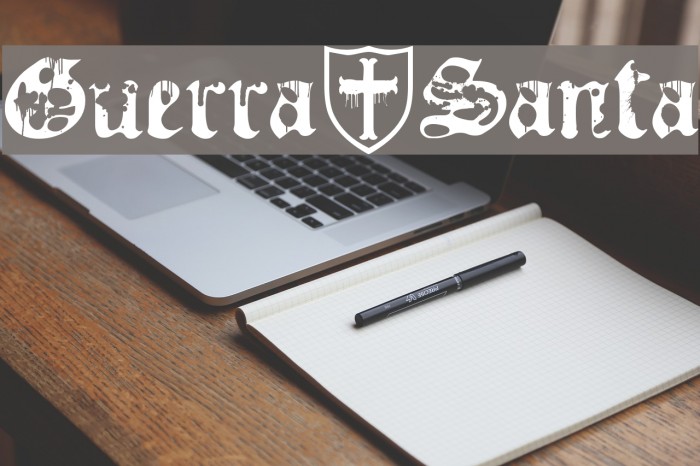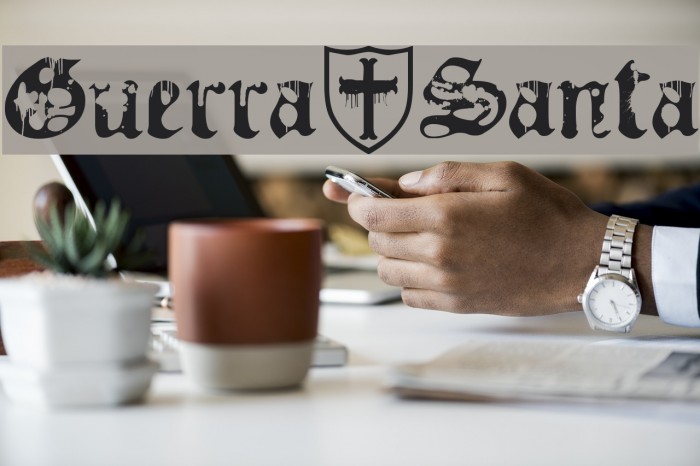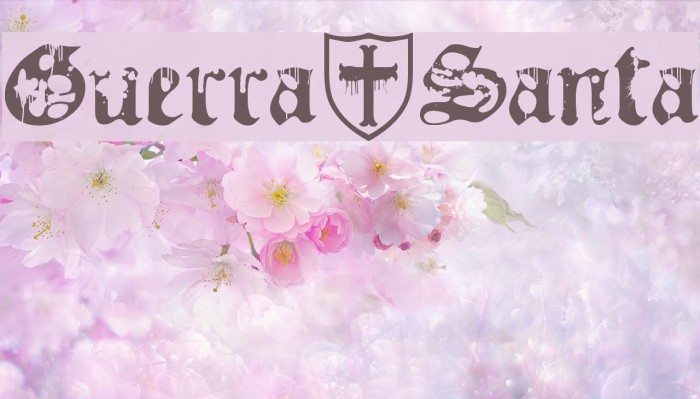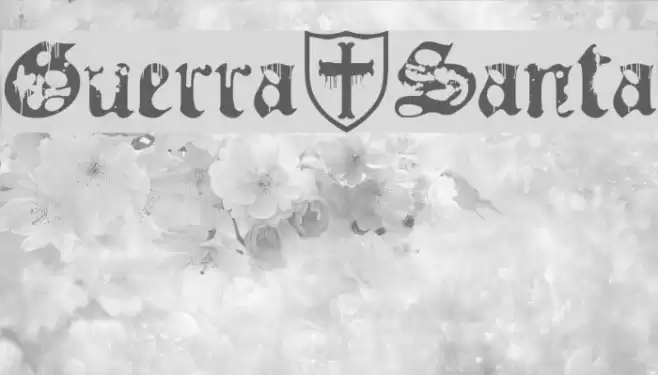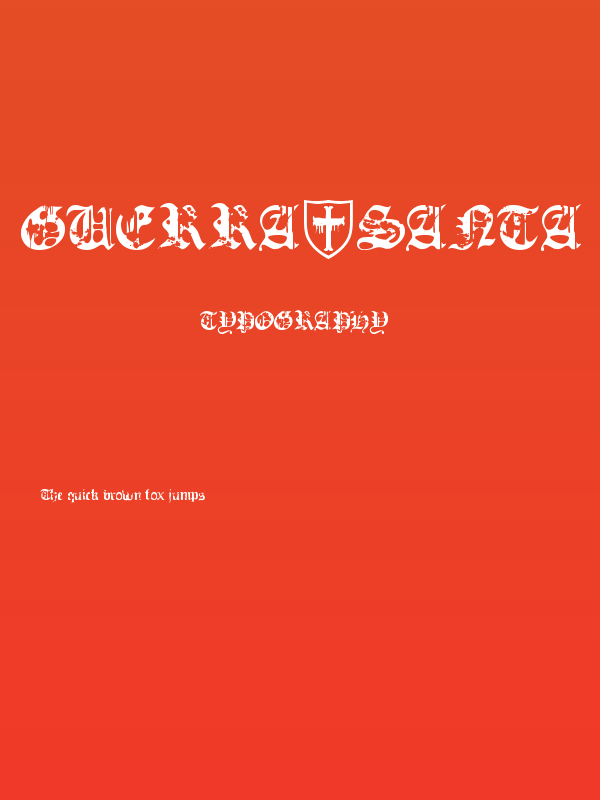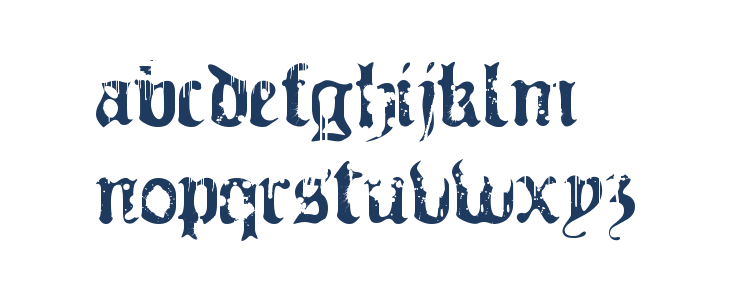
Guerra_Santa Font
Guerra_Santa Description
This font exhibits a bold and dramatic style, reminiscent of Gothic or Blackletter typefaces. The characters are highly decorative, featuring intricate details and flourishes that give them a distressed, almost grunge-like appearance. The uppercase and lowercase letters maintain a consistent theme, with sharp angles and pointed serifs. The numbers and special characters follow the same ornate design, ensuring a cohesive look across all glyphs. This font's unique style makes it stand out, ideal for projects that require a strong visual impact.
| Use Case | Logos, Posters, Headlines |
| Proposed Projects | Ideal for album covers, posters, branding for edgy or alternative products, and any design needing a dramatic flair. |